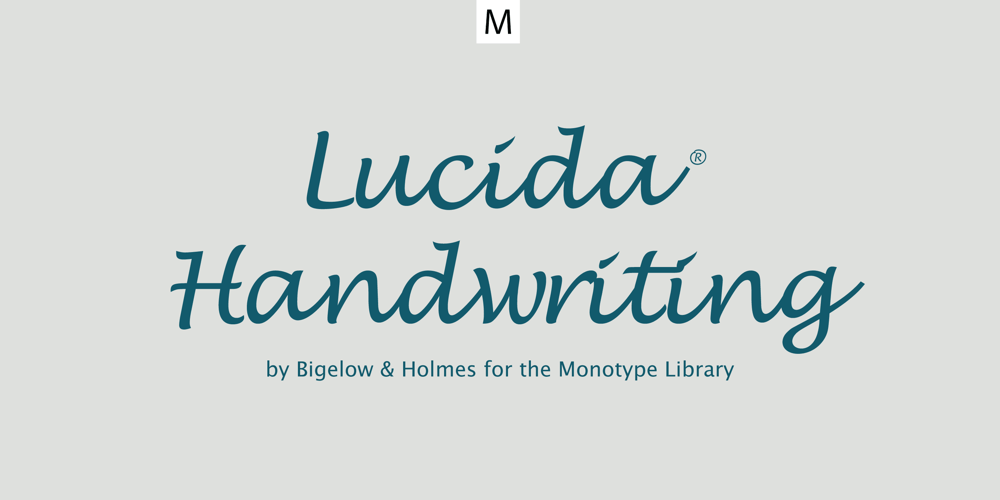
Lucida Handwriting Font Family was designed by Charles Bigelow, Kris Holmes and published by Monotype. Lucida Handwriting contains 5 styles and family package options. Lucida Handwriting is a casual, connected script designed for smooth and fun reading on screens and in print. Its relaxed personality and vigorous energy sends a distinctive message. Lucida Handwriting was originally released in one weight. It is now available in five weights, from Thin to Black. Lucida Handwriting was designed by Kris Holmes and Charles Bigelow based on historic blackletter style cursives. As with other joining script typefaces, all capital letters usage is not recommended: it is best to use upper and lowercase for optimal legibility. Lucida Handwriting is part of the Lucida superfamily of fonts from Bigelow & Holmes. Lucida is highly regarded for legibility and its extensive range of type styles. The Lucida Handwriting typeface family has a Standard character set with 255 glyphs supporting the basic range of Latin languages.